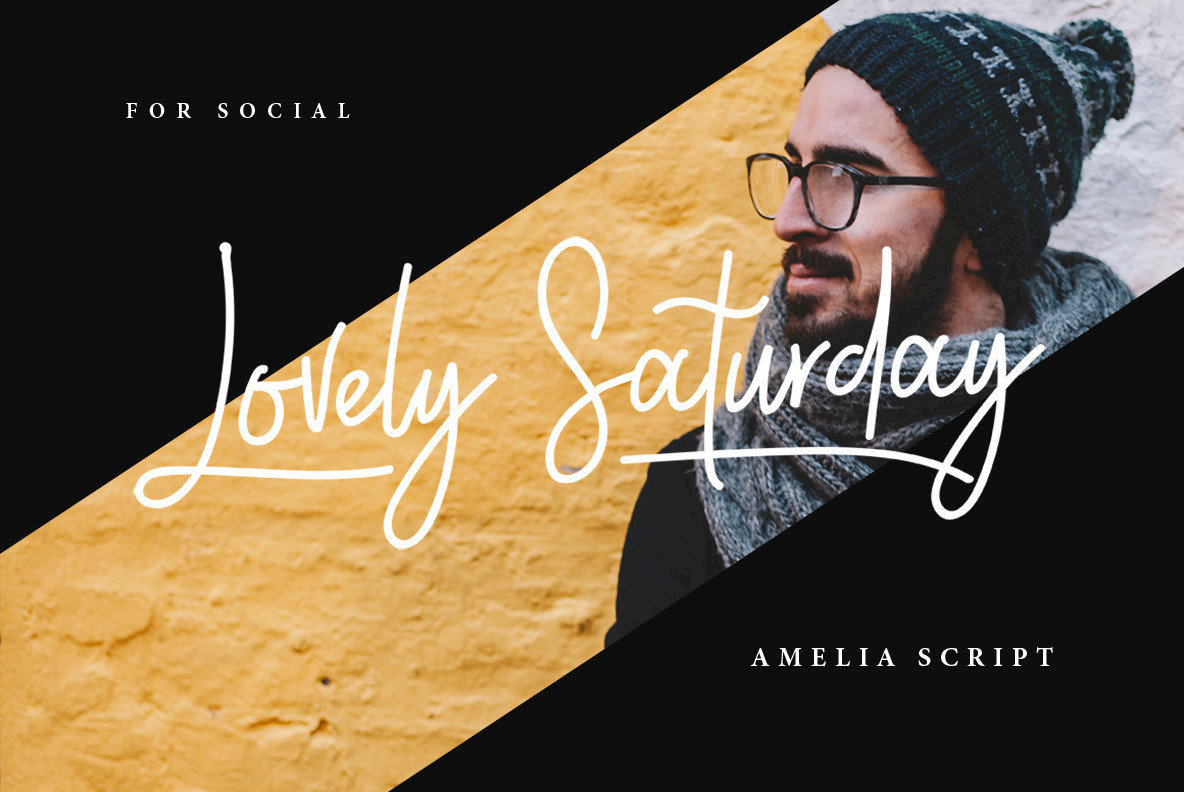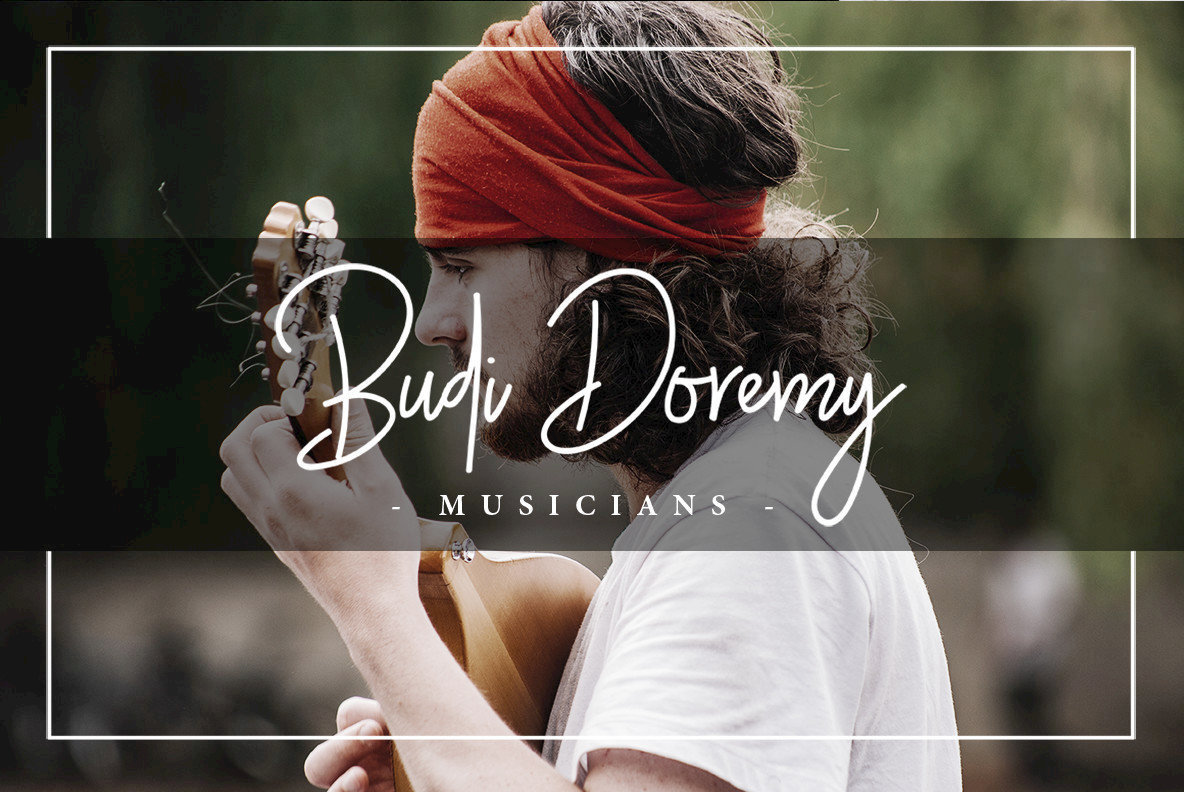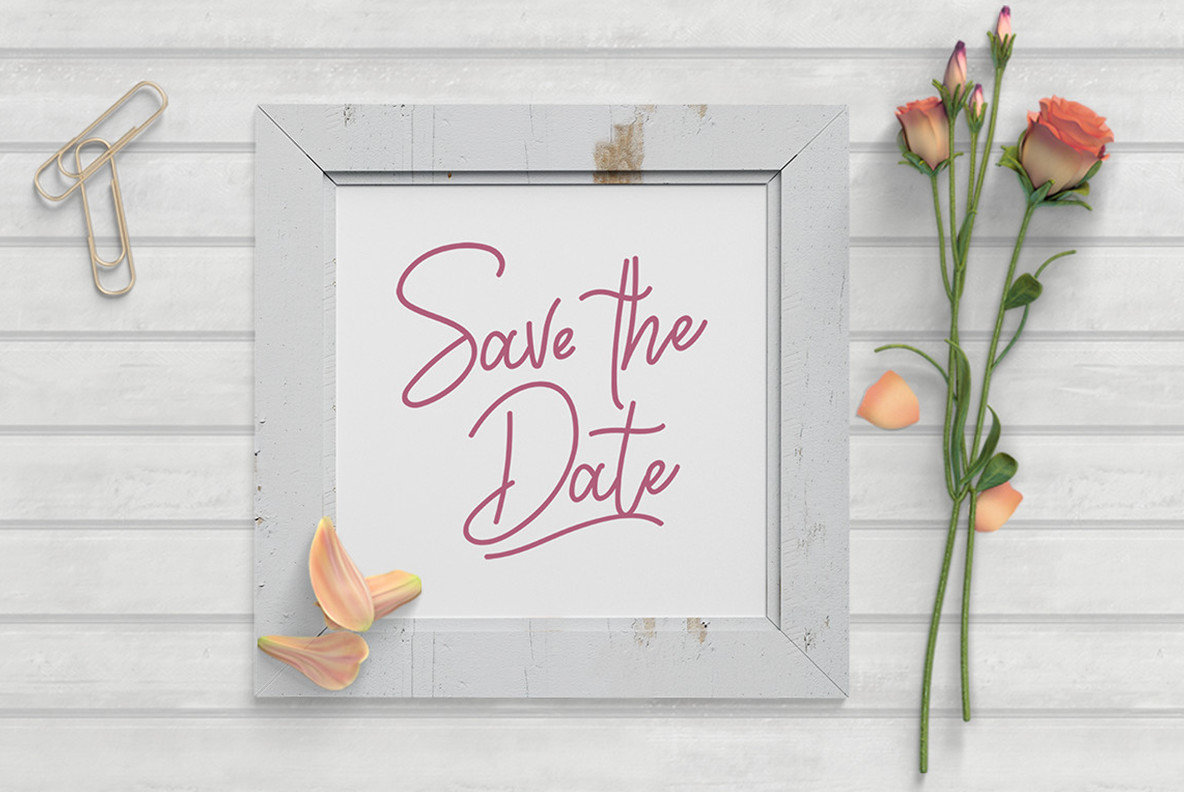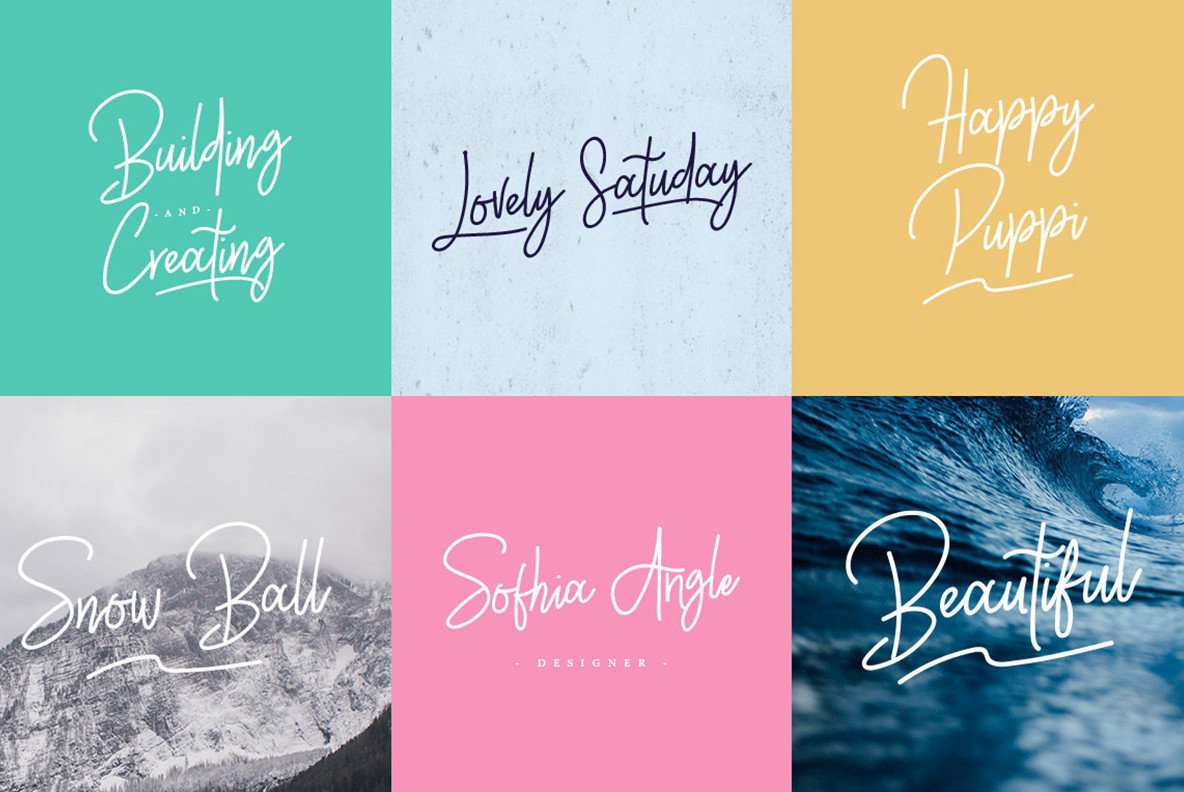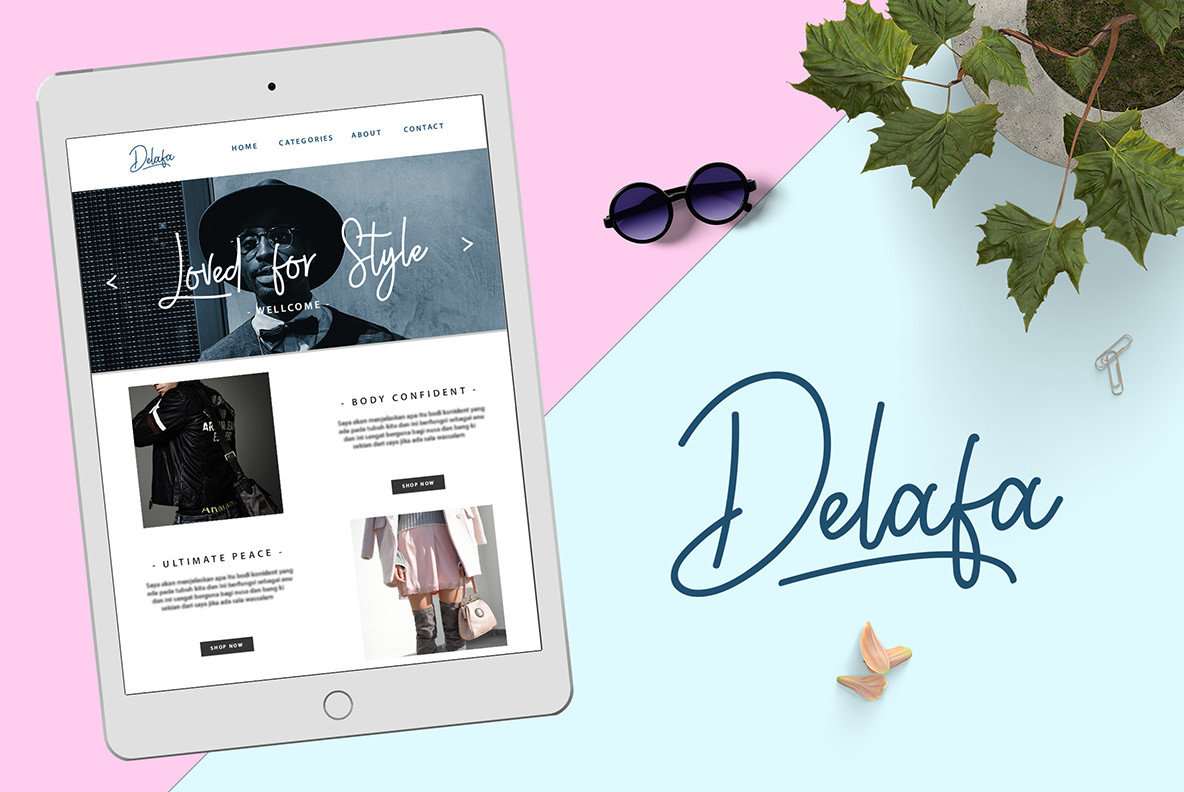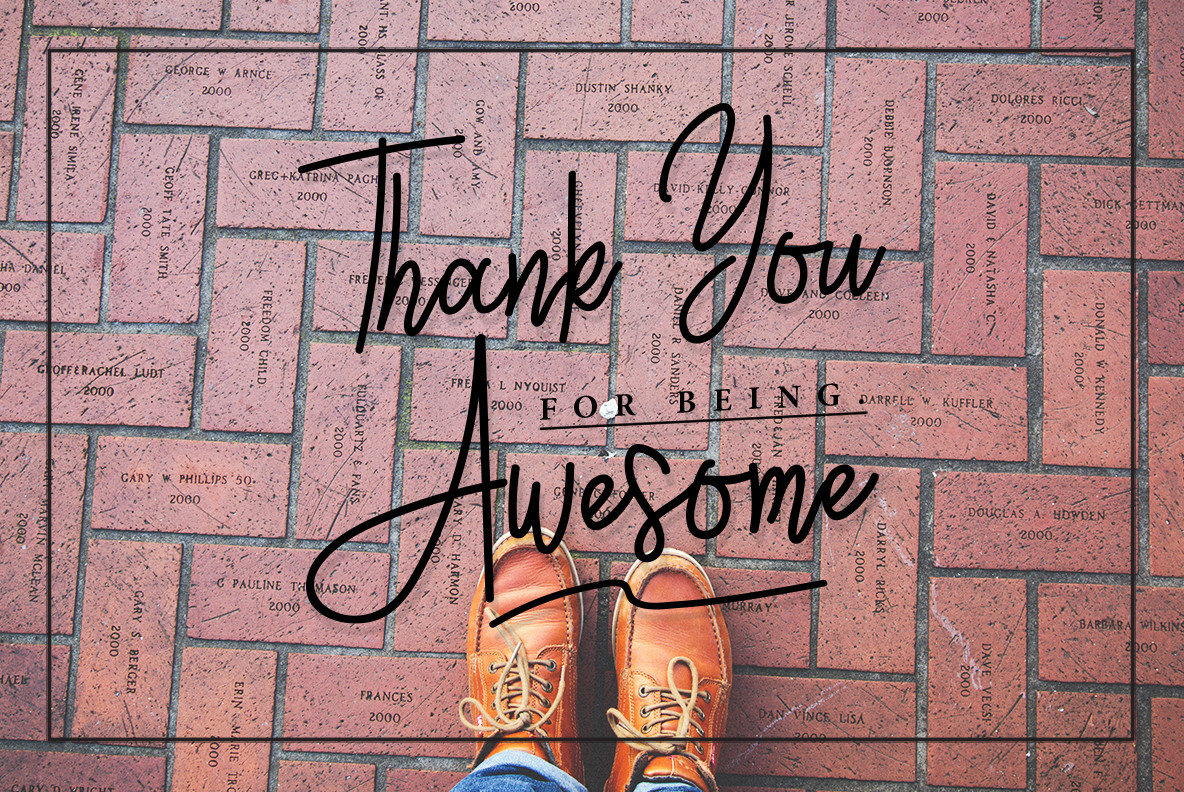
Ameliea Script Font
Ameliea Script is a signature style typeface that works best for logos, name tags, handwritten quotes, product packaging, merchandise, social media & greeting cards. It contains a full set of lower & uppercase letters, a large range of punctuation, numerals, and multilingual support.
- 3 Stylistic Alternate
- Standard Ligature
- 62 swashes
- Alternates